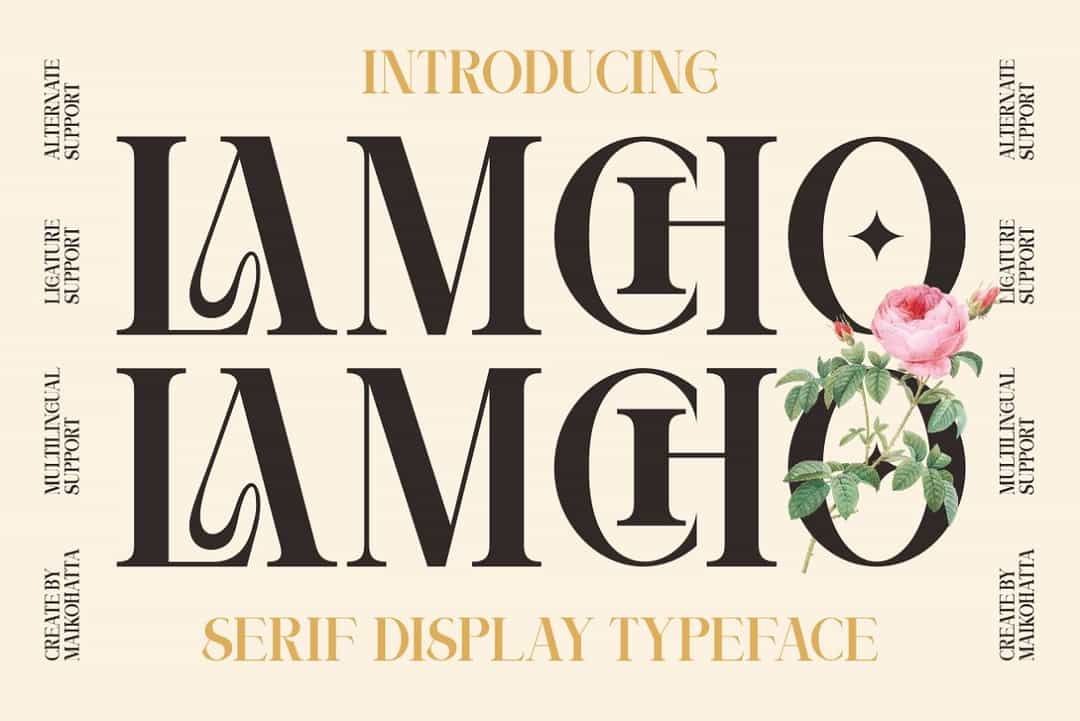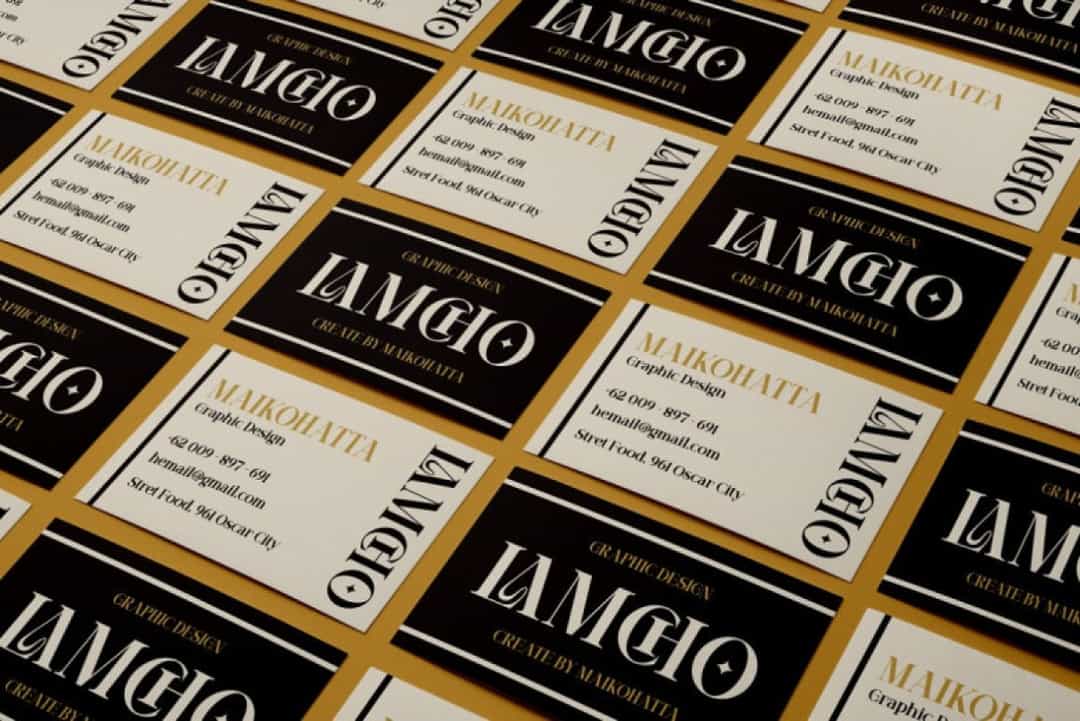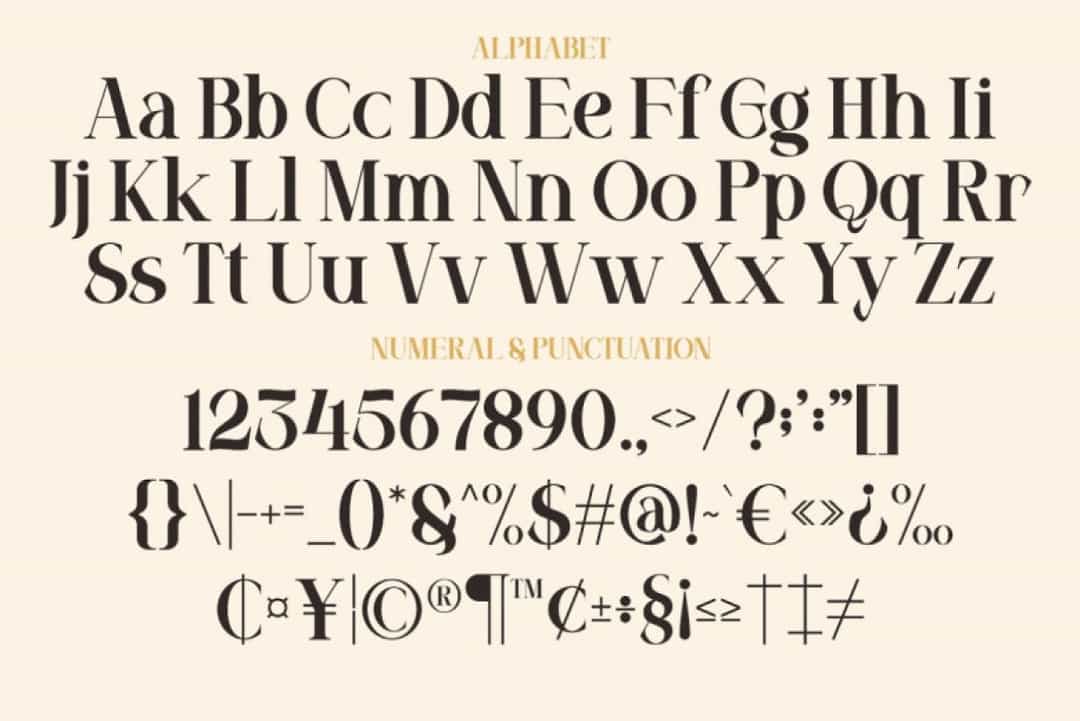
Lamcho Serif Display Font is an exquisite typeface masterpiece, perfectly balancing elegance and clarity. Each letter of this font was meticulously created with perfect proportions and alignment in mind; making this font suitable for printing designs, promotional materials or magazine layouts.